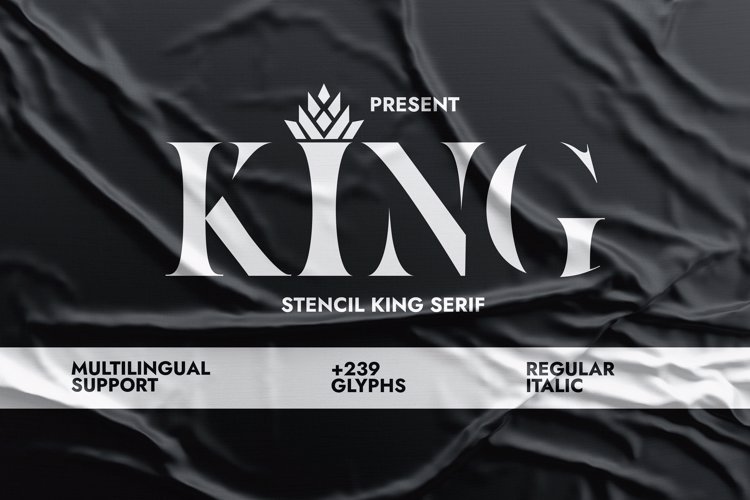
KING Font
๐จ Font Name: King by Minimalist Art Studio
๐จ Font Description: Stencil King Serif is a bold serif with multilingual supportโperfect for luxury branding, editorial drama, and statement packaging.
โ Complete Latin set + multilingual diacritics
โ Alternates, stylistic sets & ligatures
โ Numbers, small caps, and extended punctuation
โ Bonus italics and family styles